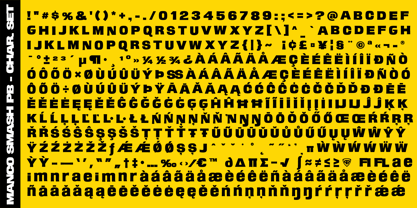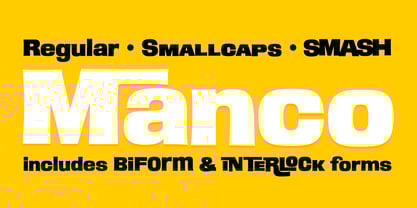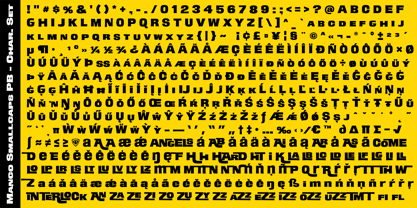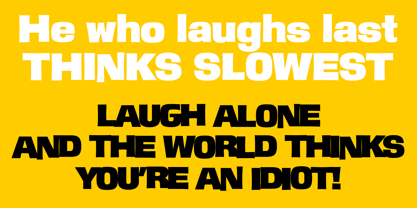
Manco PB
by Pink Broccoli
The Manco PB Font Family was designed by Brian J. Bonislawsky, Phil Bracco and published by Pink Broccoli. Manco PB contains 3 styles and family package options. More about this family
Manco PB is a bold retro sans serif inspired by the film typeface Monza from LetterGraphics, originally released as a five-style film lettering family. This modern revival consolidates that design into three versatile fonts: Regular, Smallcaps, and Smash. The Regular style includes the original Biform concept as stylistic alternates, while the Smallcaps style unlocks a true interlocking typographic system where capitals and smallcaps connect dynamically through swash-style interactions and ligatures. With its rugged personality and vintage advertising energy, Manco PB is ideal for posters, logos, sports graphics, packaging, and bold display typography that demands attention.
Designers: Brian J. Bonislawsky, Phil Bracco
Foundry: Pink Broccoli